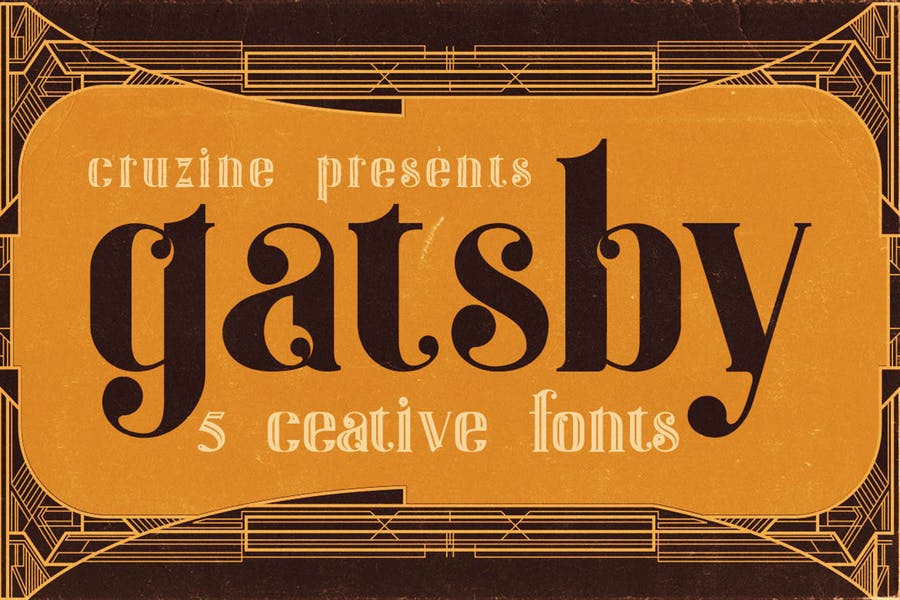
Gatsby - ArtDeco Font
Gatsby ArtDeco Font is perfect for luxury hotel branding, prohibition-era cocktail bars, Jazz Age event marketing, vintage fashion campaigns, upscale speakeasy signage, elegant 1920s celebrations, Art Deco architecture signage, and sophisticated Roaring Twenties promotions.
What makes Gatsby ArtDeco Font exciting is its Jazz Age glamour that embodies the opulent sophistication and rebellious elegance of the Roaring Twenties with prohibition-era authenticity and Art Deco magnificence. The font features geometric letterforms with 1920s proportions and gatsby character that evoke speakeasies, flapper dresses, and the dazzling excess of Jazz Age luxury and prohibition-era sophistication. Its distinctive Art Deco styling and glamorous appeal communicate wealth, rebellion, and sophisticated excess, making every message feel illuminated by jazz club spotlights and touched by the intoxicating glamour of Gatsby-era luxury and 1920s sophistication.
The Gatsby ArtDeco Font family includes regular weight with uppercase and lowercase letters, numerals, punctuation marks, and special characters. Premium versions often feature geometric alternates and Art Deco elements that enhance the glamorous, 1920s aesthetic perfect for luxury and entertainment applications.
The glamorous character of Gatsby ArtDeco Font makes it particularly valuable for luxury cocktail venues, vintage fashion brands, and upscale entertainment establishments. Its excellent impact ensures luxury messaging and glamorous communications capture attention while maintaining the distinctive Art Deco aesthetic that appeals to customers seeking authentic 1920s experiences and Jazz Age sophistication.
Luxury entertainment marketers appreciate how Gatsby ArtDeco Font effortlessly conveys period authenticity and sophisticated glamour. The font's geometric proportions and Art Deco details create prestigious brand materials that establish connections with audiences who value Jazz Age culture, prohibition history, and the geometric sophistication of Art Deco luxury and Gatsby-era elegance.
The versatile sophistication of this typeface extends to luxury real estate, upscale events, and cultural institutions where Art Deco authenticity enhances luxury positioning and period appeal. Gatsby ArtDeco Font Free Download provides creative professionals with an essential tool for developing memorable, glamour-driven designs that resonate with audiences who embrace Jazz Age sophistication, Art Deco elegance, and the dazzling luxury of Gatsby-era style in their entertainment and lifestyle experiences.